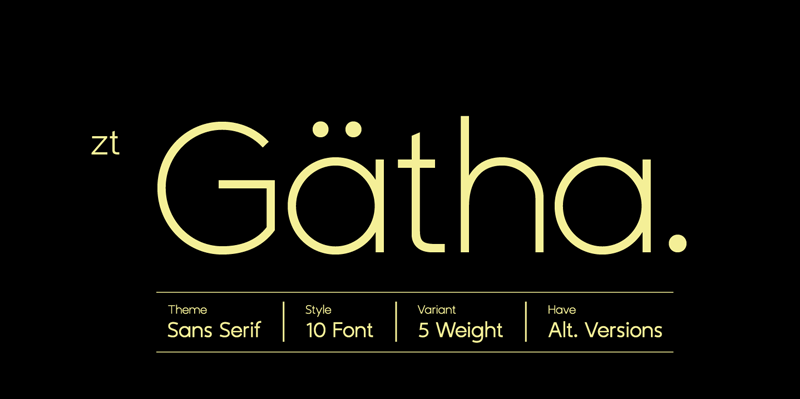
Font name: | ZT Gatha |
Author: | zelowtype |
About ZT Gatha is a continuation of the "Gatha Duo font family", which focuses only on more complete variations of sans serif, this font has two variants, one of which is a normal sans font and the other is unique in that it minimizes edges. of each letter produces a unique character with a smoothly curved groove. Note of the author To download the full font family please visit our website: https://creativemarket.com/zelowtype/12717410-ZT-Gatha Donation are very appreciated. Paypal account for donation : https://paypal.me/khaiuns CONTACT US: have a question?: selowtype@gmail.com |